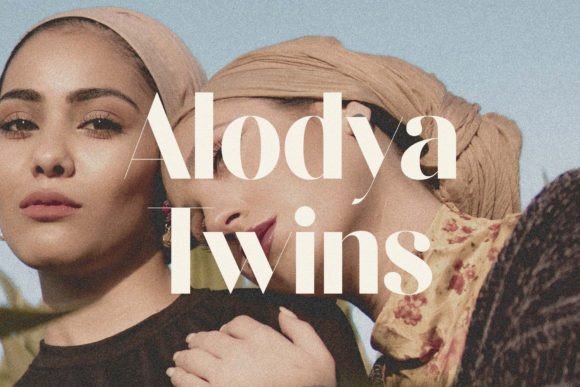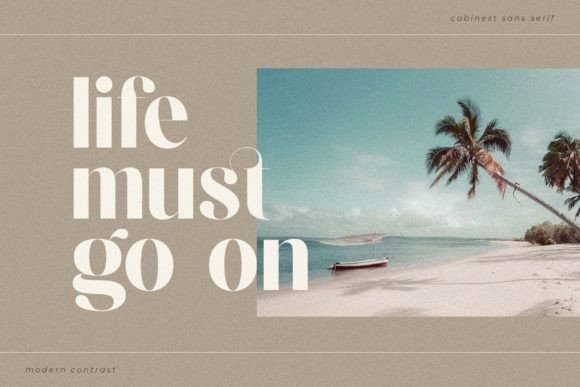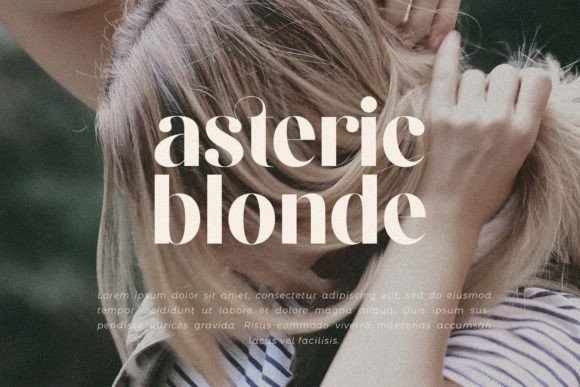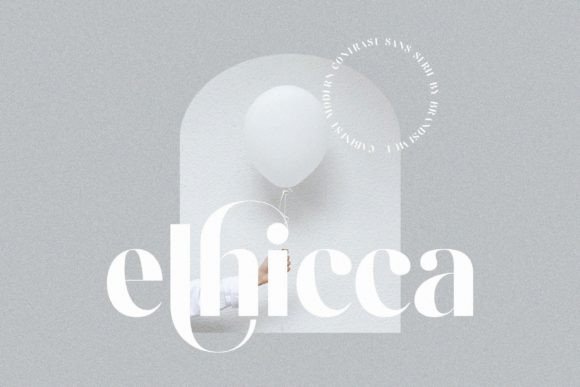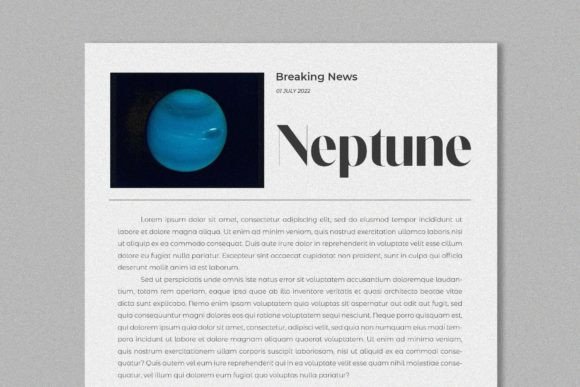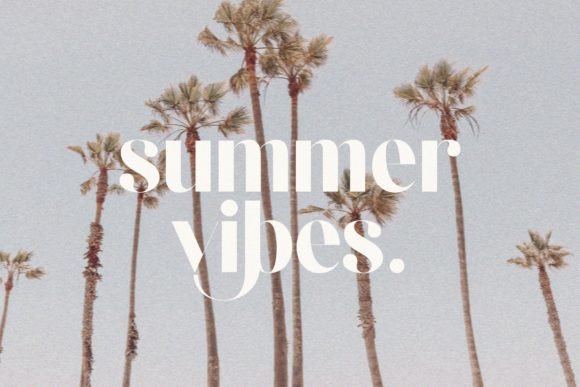
Cabinest Font: Elevate Your Designs with Elegance and Modernity
In the world of typography, fonts play a crucial role in conveying the tone and personality of a design. For designers and crafters looking to add a touch of sophistication and modernity to their projects, Cabinest font is an excellent choice. This elegant and modern sans serif font is perfect for making a statement with headings, logos, branding, magazines, product packaging, and invitations.
The Characteristics of Cabinest Font
Cabinest font boasts clean lines and smooth curves, giving any project an extra touch of class. Its sans serif design ensures a sleek and contemporary look, making it ideal for designs that require a modern aesthetic. The font’s elegance lies in its simplicity, allowing designers to create visually appealing and cohesive designs.
Uses of Cabinest Font
Cabinest font is incredibly versatile and can be used in a variety of design projects, including:
- Headings and Titles: Add a touch of sophistication to your headings and titles with Cabinest font’s clean and modern design.
- Logos and Branding: Create a lasting impression with a logo that exudes elegance and professionalism.
- Magazines and Editorials: Elevate your magazine and editorial designs with a font that is both stylish and easy to read.
- Product Packaging: Make your product stand out on store shelves with packaging that features a modern and sophisticated font.
- Invitations and Events: Add a touch of class to your invitations and event materials with Cabinest font’s elegant design.
Why Choose Cabinest Font?
With so many fonts available, why choose Cabinest font for your designs? Here are a few reasons:
- Unique and Modern Design: Cabinest font offers a fresh and modern take on sans serif fonts, making it perfect for designers looking to create unique designs.
- Elegant and Sophisticated: The font’s clean lines and smooth curves give it an elegant and sophisticated feel, making it ideal for high-end designs.
- Versatile: Cabinest font can be used in a variety of design projects, from headings and titles to logos and branding.
- Easy to Read: Despite its elegant design, Cabinest font is easy to read, making it perfect for body text and captions.
Tips for Using Cabinest Font
To get the most out of Cabinest font, here are a few tips:
- Pair with Other Fonts: Experiment with pairing Cabinest font with other fonts to create a unique and visually appealing design.
- Play with Sizes: Use different font sizes to create visual hierarchy and add depth to your design.
- Experiment with Colors: Try out different colors and color combinations to add personality to your design.
Cabinest font is an excellent choice for designers and crafters looking to add a touch of elegance and modernity to their designs. With its clean lines, smooth curves, and versatile design, it’s perfect for a variety of projects, from headings and titles to logos and branding. Whether you’re a seasoned designer or just starting out, Cabinest font is sure to elevate your designs and make them stand out.